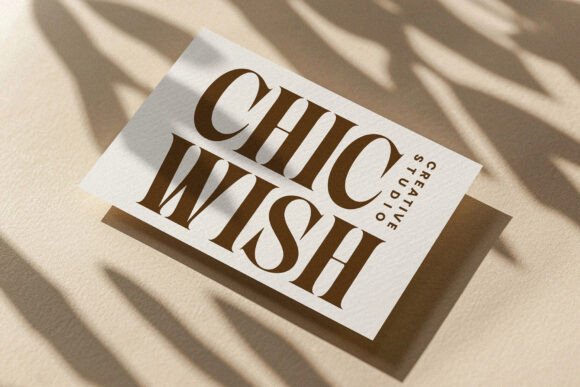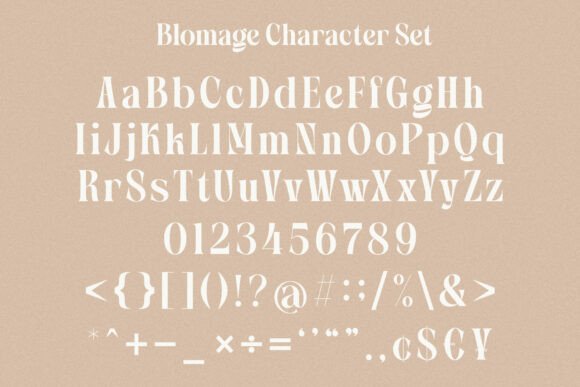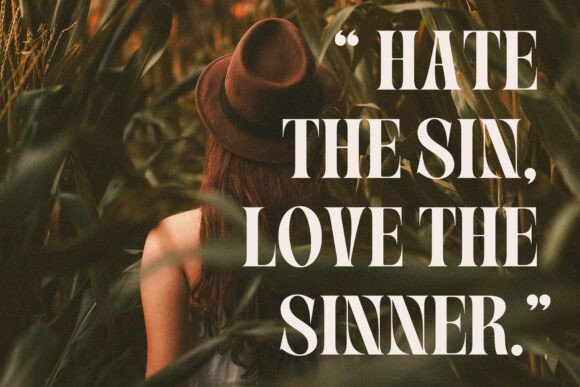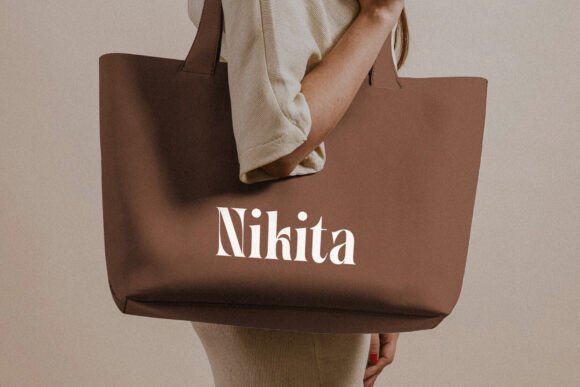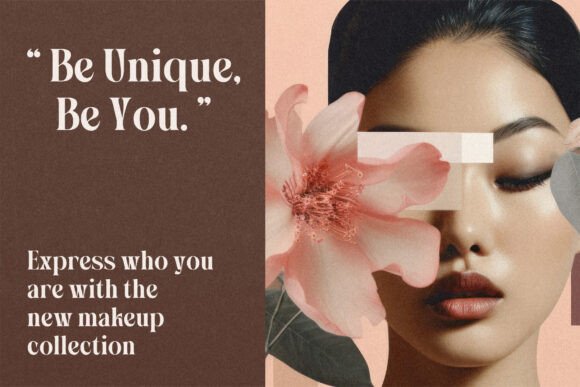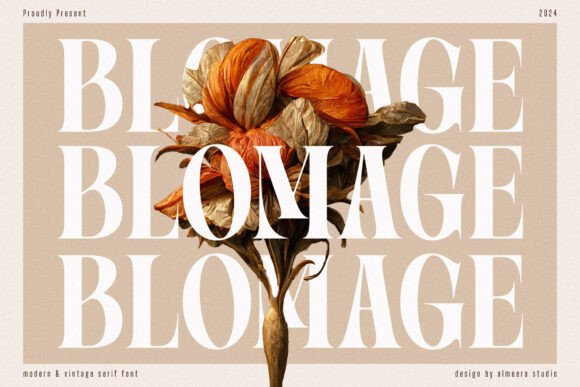
Introducing Blomage Font: The Modern, Bold, and Simple Serif Solution for All Your Design Needs
In the world of typography, fonts play a crucial role in conveying messages, expressing creativity, and establishing brand identities. With numerous font styles available, finding the perfect one for your project can be overwhelming. However, if you’re looking for a modern, bold, and simple serif font that can elevate your designs, look no further than Blomage Font. In this article, we’ll explore the features, benefits, and uses of Blomage Font, making it an essential read for designers, crafters, and anyone seeking a versatile font solution.
What is Blomage Font?
Blomage Font is a contemporary serif font designed to cater to various design needs. Its clean and straightforward lines make it an excellent choice for projects requiring a bold yet elegant touch. Whether you’re working on branding projects, logos, social media posts, advertisements, labels, product packaging, photography, wedding designs, watermarks, invitation product designs, stationery, or any other project, Blomage Font is an ideal solution.
Key Features of Blomage Font
- Modern and Bold: Blomage Font boasts a modern and bold appearance, making it perfect for designs that require a statement piece.
- Simple Serif: The font features simple serif lines, ensuring clarity and readability across various mediums.
- Versatile: Blomage Font is suitable for a wide range of projects, from digital designs to print materials.
- Elegant: The font’s clean design lends an air of elegance to any project, making it ideal for high-end branding and luxury designs.
Benefits of Using Blomage Font
Using Blomage Font in your designs offers several benefits, including:
- Consistency: Blomage Font helps maintain consistency across your brand’s visual identity, ensuring a cohesive look and feel.
- Legibility: The font’s simple serif design ensures excellent legibility, making it easy for your audience to read and understand your message.
- Creativity: Blomage Font’s bold and modern appearance allows you to experiment with various design elements, giving you the freedom to express your creativity.
- Time-Saving: With Blomage Font, you can save time searching for the perfect font, allowing you to focus on other aspects of your project.
Uses of Blomage Font
Blomage Font’s versatility makes it suitable for a wide range of applications, including:
- Branding Projects: Establish a strong brand identity with Blomage Font’s bold and elegant appearance.
- Logos: Create a lasting impression with a logo designed using Blomage Font.
- Social Media Posts: Elevate your social media presence with eye-catching posts featuring Blomage Font.
- Advertisements: Grab attention with bold and modern ads designed using Blomage Font.
- Labels and Product Packaging: Make your products stand out with Blomage Font’s clean and elegant design.
- Photography: Add a touch of sophistication to your photography with Blomage Font.
- Wedding Designs: Create beautiful wedding designs, such as invitations and decorations, using Blomage Font.
- Watermarks: Protect your work with elegant watermarks designed using Blomage Font.
- Stationery: Elevate your stationery, such as business cards and letterheads, with Blomage Font.
Blomage Font is a modern, bold, and simple serif font that offers a versatile solution for various design needs. Its clean and elegant design makes it perfect for branding projects, logos, social media posts, advertisements, labels, product packaging, photography, wedding designs, watermarks, invitation product designs, stationery, and any other project. With its numerous benefits, including consistency, legibility, creativity, and time-saving, Blomage Font is an essential tool for designers and crafters. Whether you’re a professional designer or a DIY enthusiast, Blomage Font is an excellent addition to your font library.